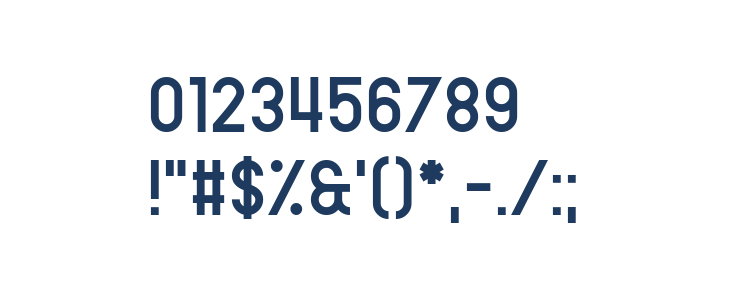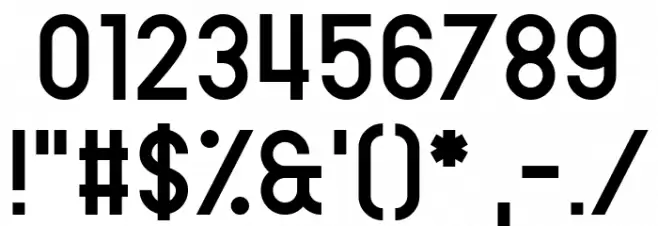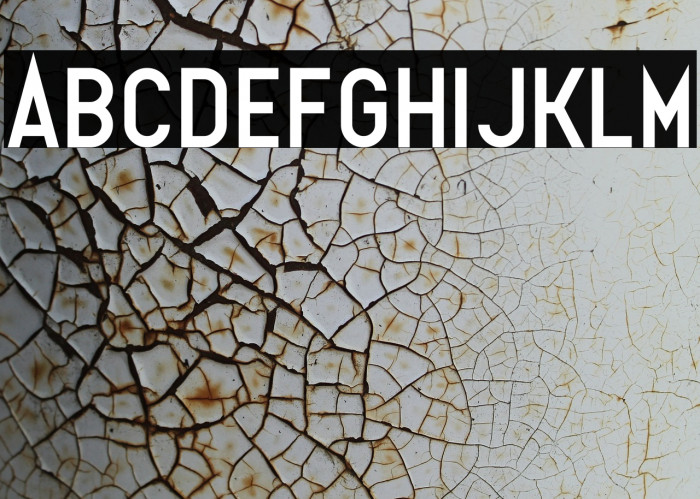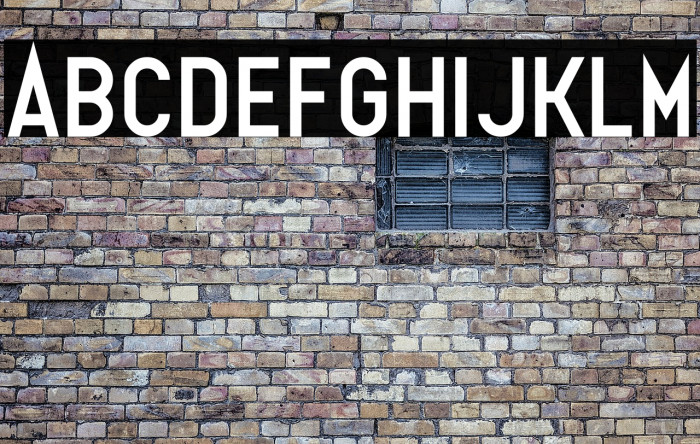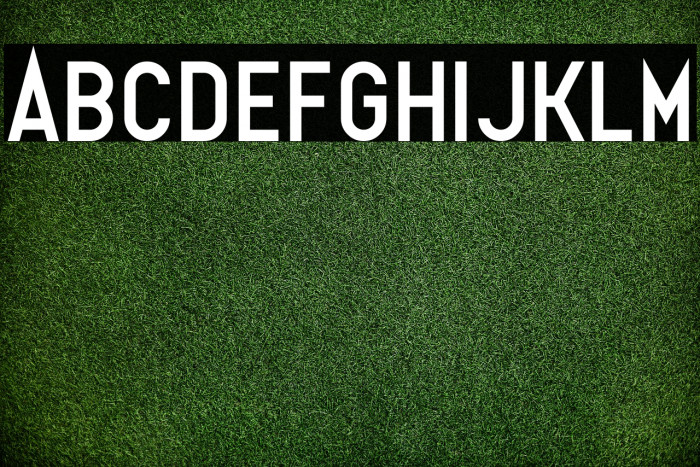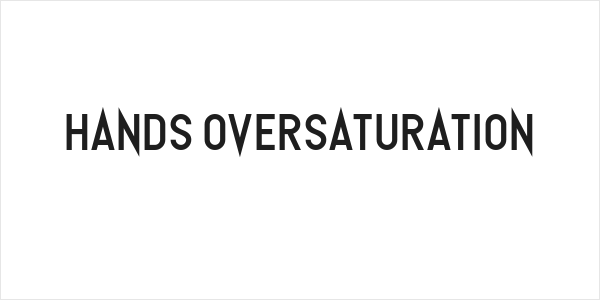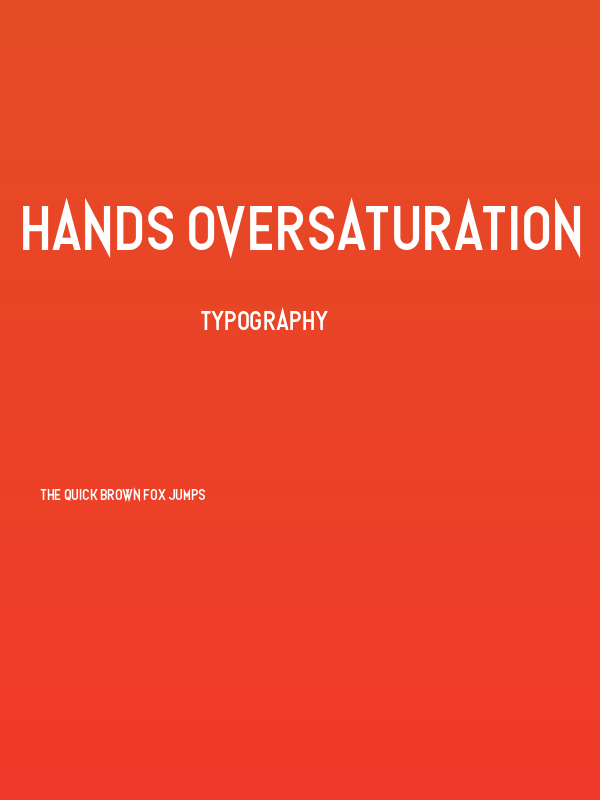
Hands Oversaturation Font
Hands Oversaturation Description
This font features a bold, geometric sans-serif style with clean, straight lines and uniform stroke widths. The characters are designed with a modern aesthetic, emphasizing clarity and readability. The uppercase and lowercase letters maintain a consistent height, contributing to a balanced appearance. The numerals and special characters are crafted to match the overall design, ensuring a cohesive look across all text elements. This font's simplicity and boldness make it suitable for a wide range of applications, from digital interfaces to print media.
A bold, geometric sans-serif font with a modern and clean design from Uncategorized fonts.
- Proposed Projects: Ideal for branding, advertising, headlines, and digital interfaces where clarity and impact are essential.
- Use Case: Headlines, Logos, Branding